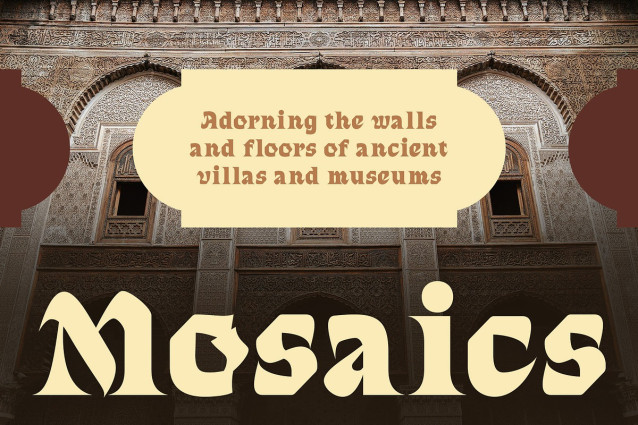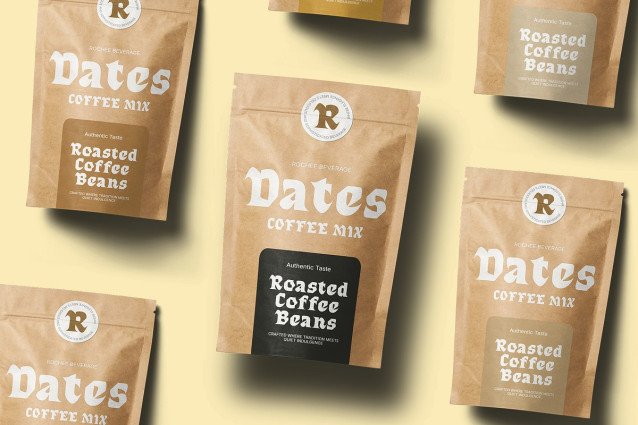
CS Ruston Font
CS Ruston Font is a bold display serif font that combines powerful flat brush strokes with a nostalgic retro flair. Its unique hand-drawn texture adds character and movement to each letterform, making it an ideal choice for standout visual compositions.
Flat Brush Strokes with Classic Retro Influence Inspired by classic sign painting and retro poster styles, CS Ruston brings boldness and artistry together. The flat brush technique infuses the font with dynamic energy and a handcrafted quality that adds warmth and personality.
Perfect for Eye-Catching Vintage and Retro Designs From vintage-style branding to nostalgic posters, product packaging, and signage, CS Ruston is perfect for designers seeking a bold typeface with a timeless appeal. Its strong presence ensures your message stands out with flair and authenticity.
Versatile and Expressive for Branding and Display Whether used in logos, headlines, or bold promotional layouts, CS Ruston delivers visual impact. Its expressive brush-inspired letterforms are well-suited for creative branding, giving a voice to designs that are both artistic and memorable.
Bold, Iconic, and Full of Personality CS Ruston captures the charm of classic brush lettering with a modern edge. It’s more than just bold—it’s expressive, iconic, and ideal for creating work that leaves a lasting impression.